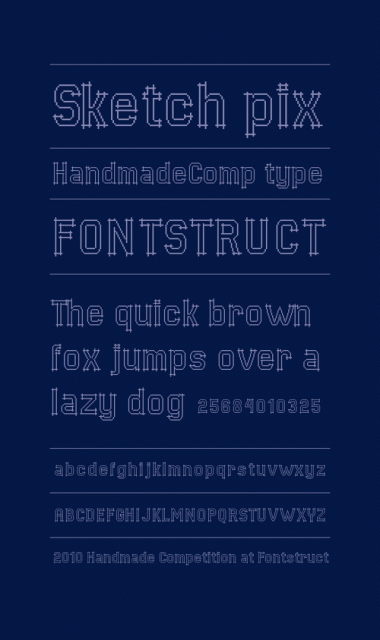
Fun idea, and the sample nicely evokes the architectural nature of FS.
Great idea and execution.
nice entry and execution. very tidy and efficient.
I've just recounted the amount of pixels high and exceeds the maximum allowed in the Comp... so I'm out...anyway I enjoyed drawing it.
Shame. It's really on the 32 brick limit though. Maybe you could make a special version for the comp? - there are still 22 hours to go. Anyway, its very nice to see you back FontStructing!
Nice combination of pixel-based and sketch-looking font!
To overcome the height limit you might redraw gliphs using the half and quarter bricks: thus you can halve the brick height.
OK! , I´ve just made another version with the 32 brick limit...
It's nice to be here fontstructing again!
Great idea! but don't have time now to redraw...